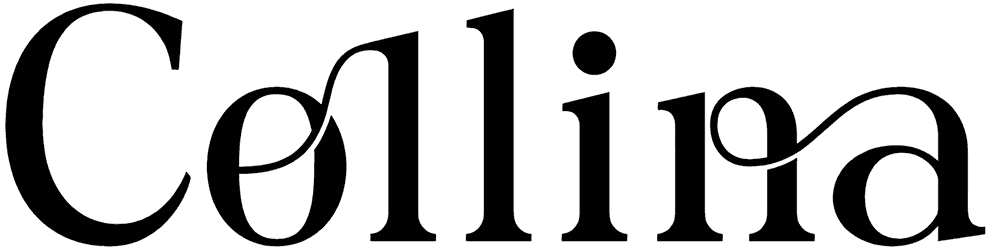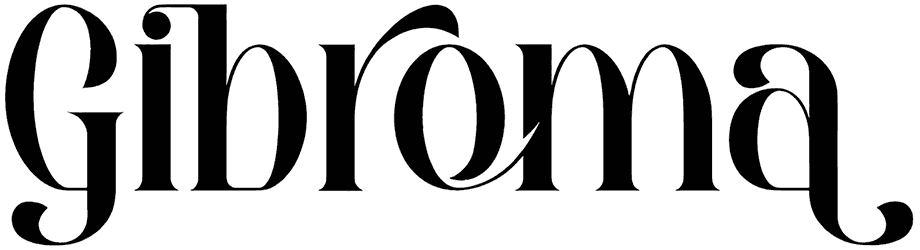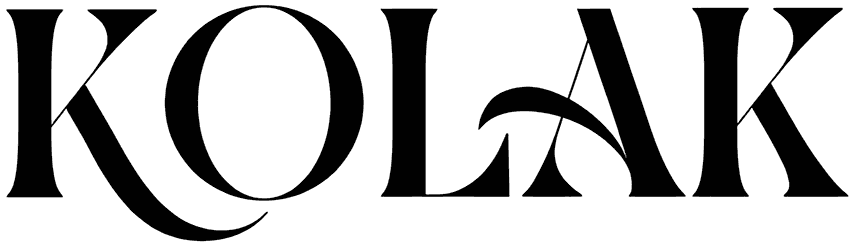
Glinster Font
With this fashion font, you have a nice chance to create a chic and appealing design that hooks a lot of observers. The characters have a unique serif visual, and you can use them to adorn a designer’s business card. Test Glinster font, as a ligature serif font, to take your design to a higher level.
Designed by: ToniStudio